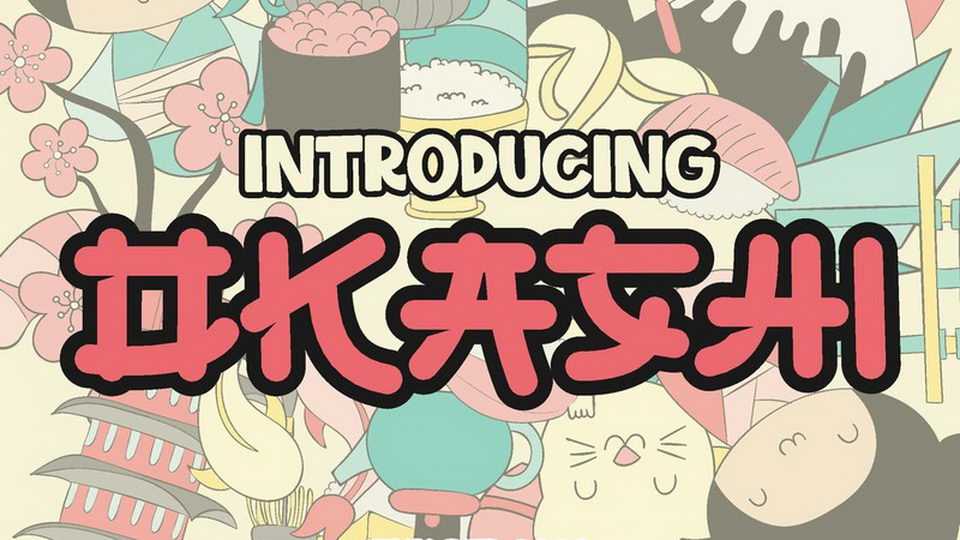
Download Okashi font, a handwritten typeface that took katakana shape, and take it to the cute cartoon children world. With rounded shape and cut-out on the intersection, Okashi emphasize the cuteness but still action feel on it.